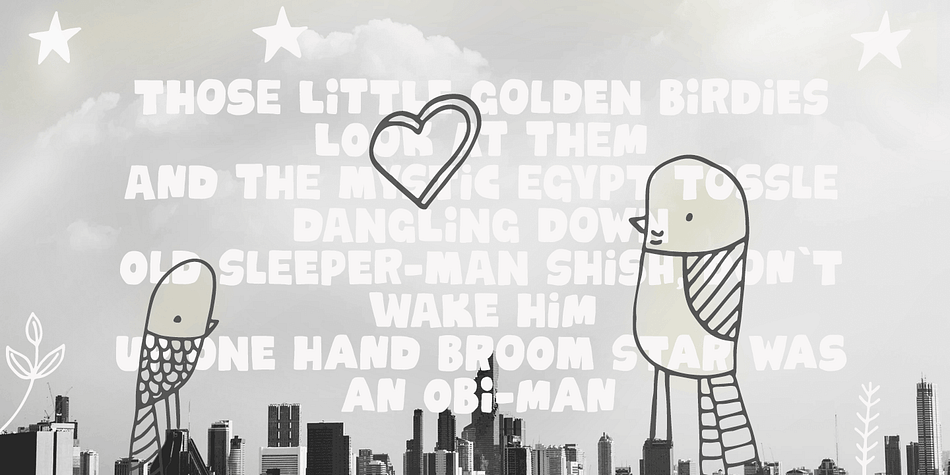
Clafoutis
Designed by Ricardo Marcin and Erica Jung, Clafoutis is a hand display, kids and dingbat font family. This typeface has three styles and was published by PintassilgoPrints.
Clafoutis: tasty, sweet and tangy, handmade, an all original recipe. Go with the Regular for a richer option and with Rapide if you’re on a light mood. Or better yet, go with both - and don’t forget to sprinkle some Insolite bits over it!
Notes from the test kitchen: Clafoutis Regular and Rapide contains 2 uppercase glyphs for each letter and extended language coverage. Clafoutis Insolite contains over 200 unexpected lovely pics. Use without moderation.
Foundry PintassilgoPrints
Styles Hand Display, Kids, Dingbat
Designers Ricardo Marcin, Erica Jung